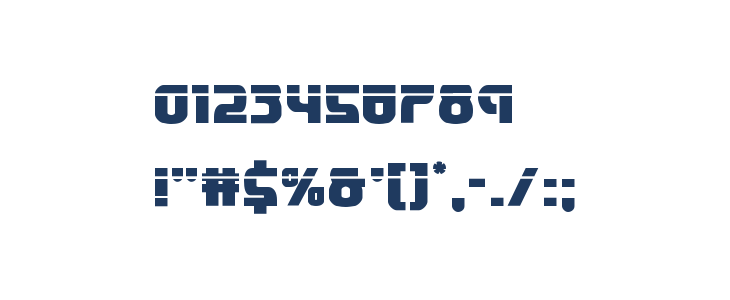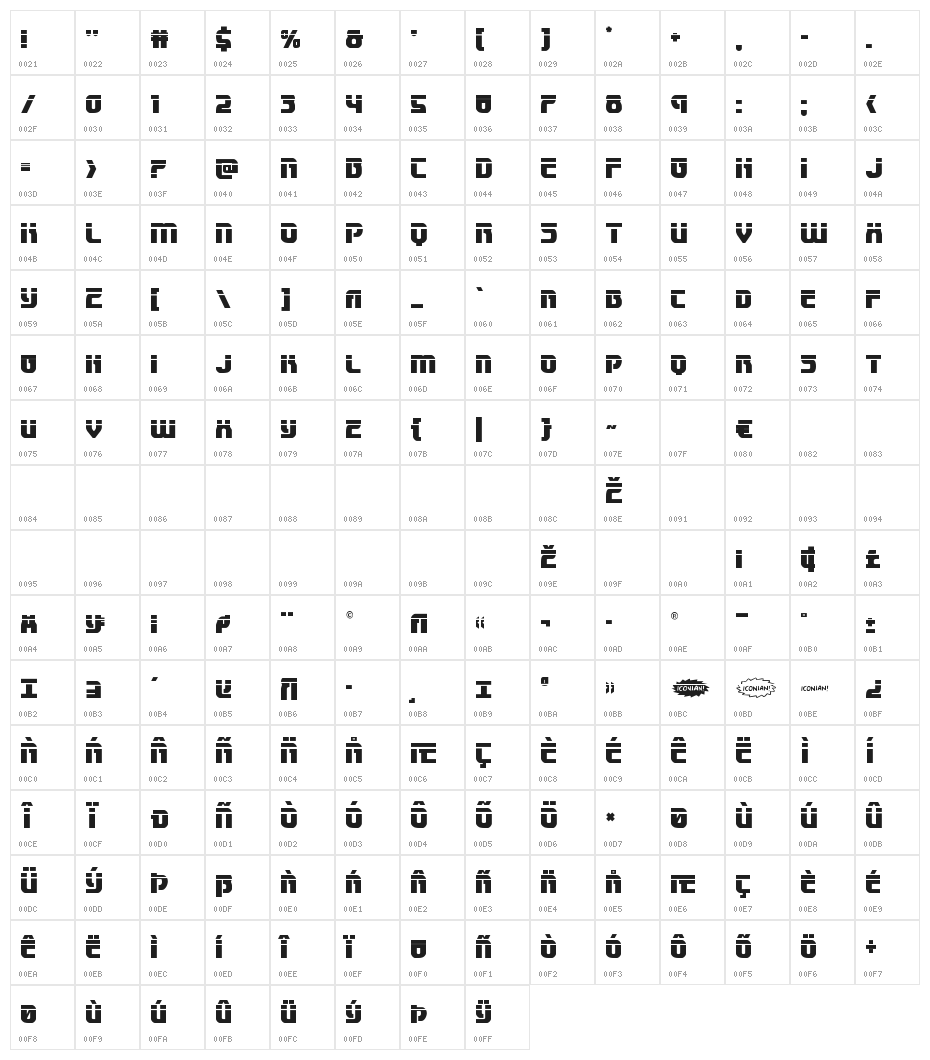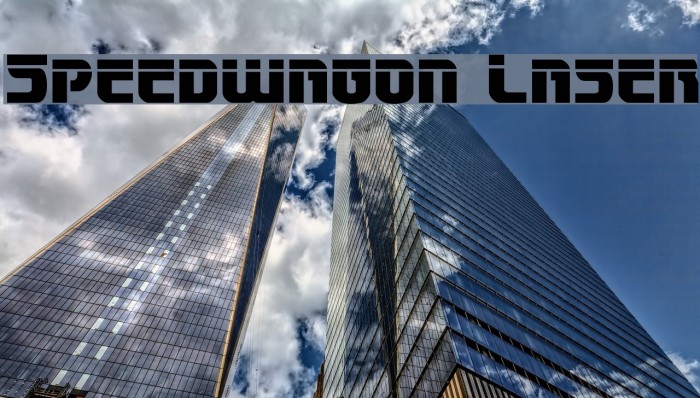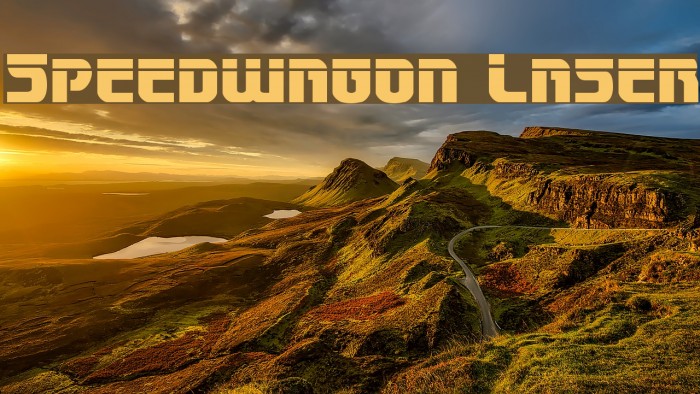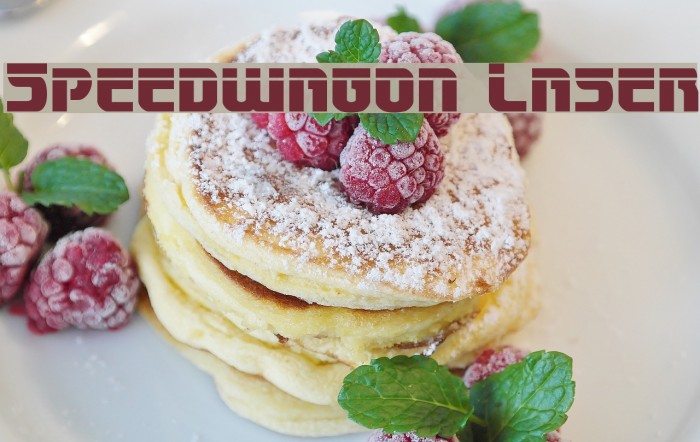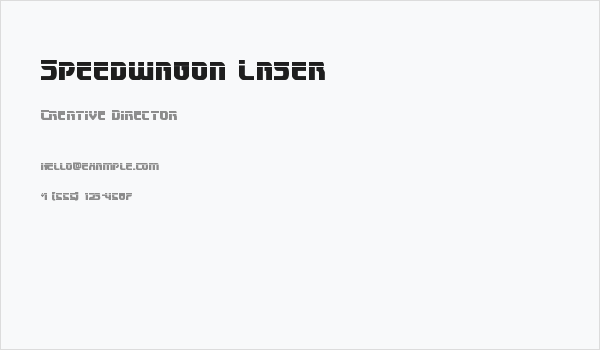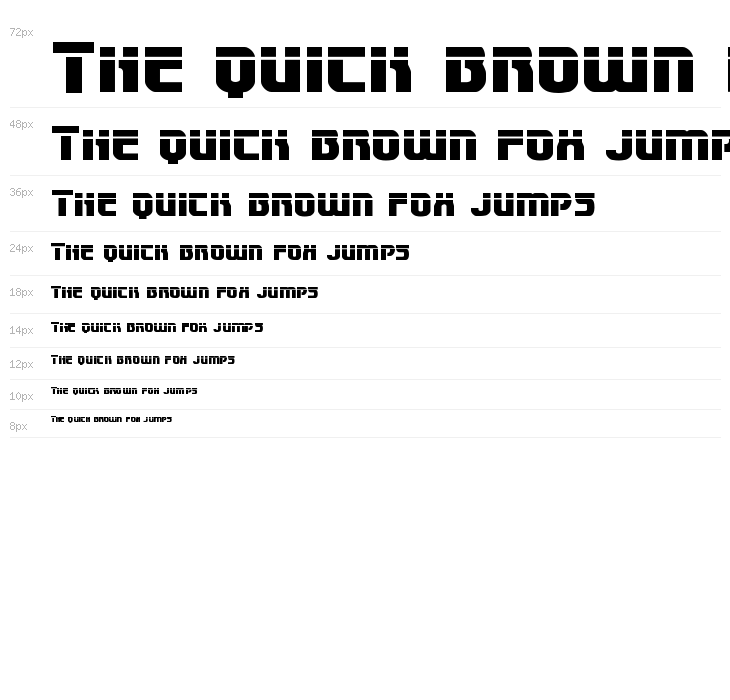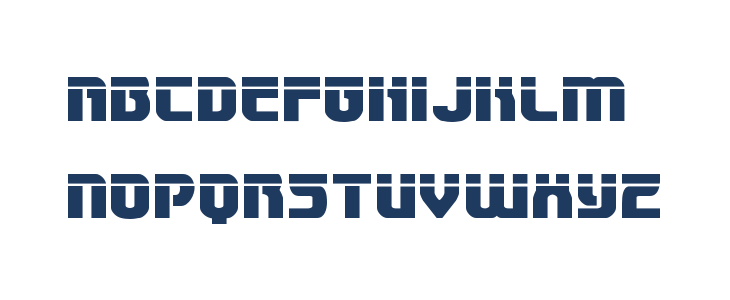
Speedwagon Laser Font
Speedwagon Laser Description
This font features a bold, geometric design with a futuristic and industrial aesthetic. The characters are constructed with sharp angles and straight lines, creating a sense of precision and modernity. The uppercase letters are particularly striking, with a uniform height and width that contribute to a cohesive and structured appearance. The numerals and special characters maintain this consistent style, ensuring versatility across various applications. The font's boldness and unique style make it ideal for attention-grabbing designs.
| Overall Style | Futuristic, Industrial |
| Proposed Projects | Ideal for sci-fi themed designs, video game graphics, technology branding, and futuristic posters. |